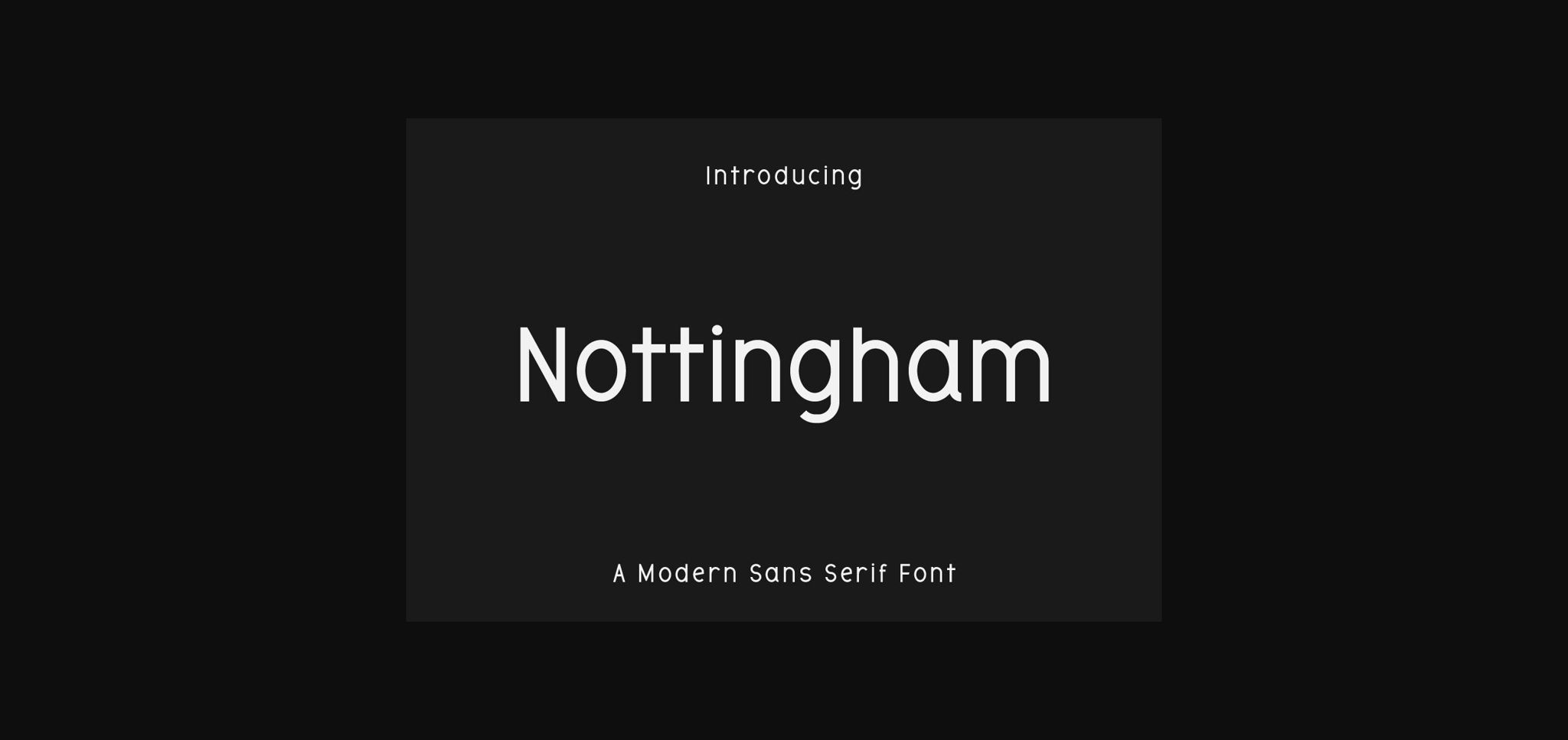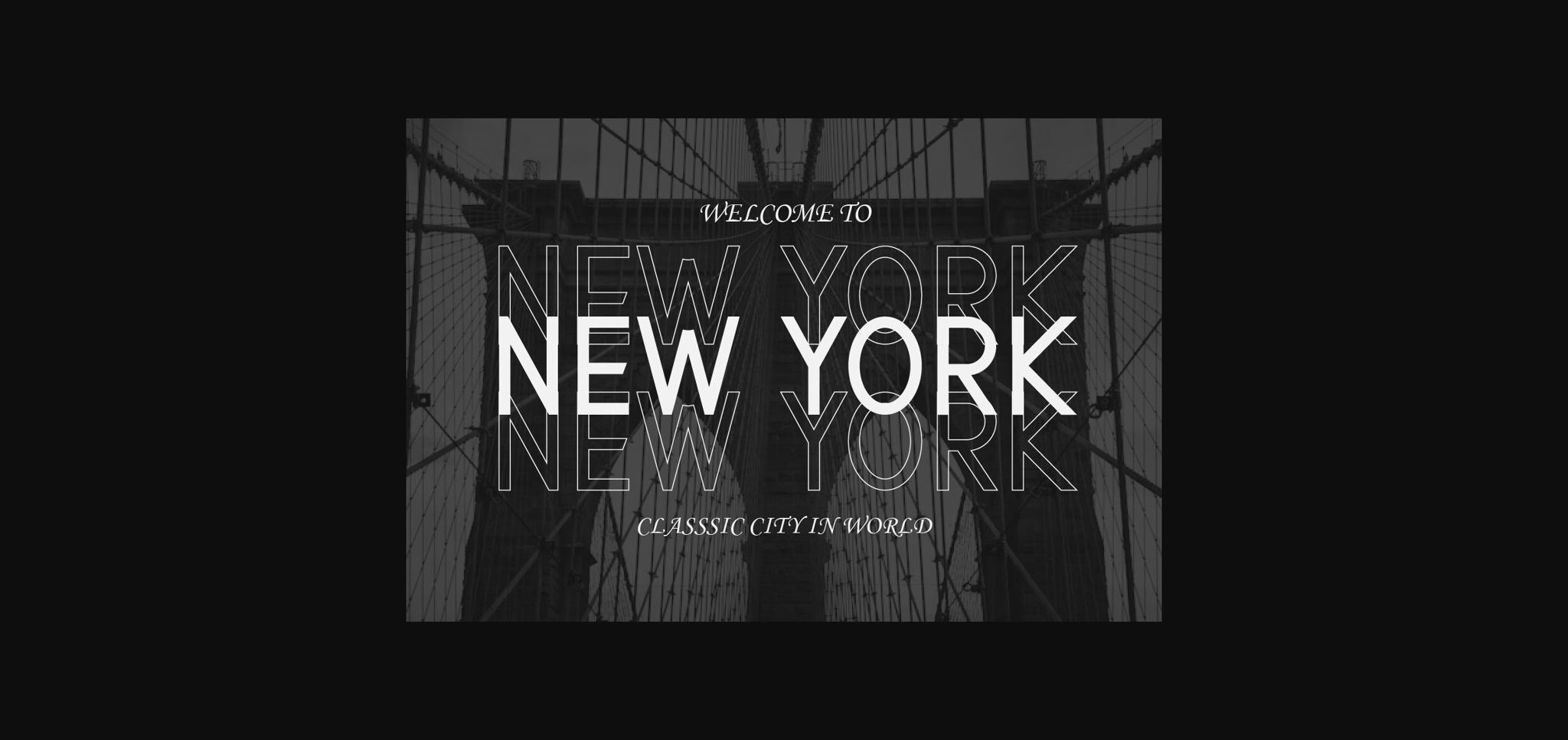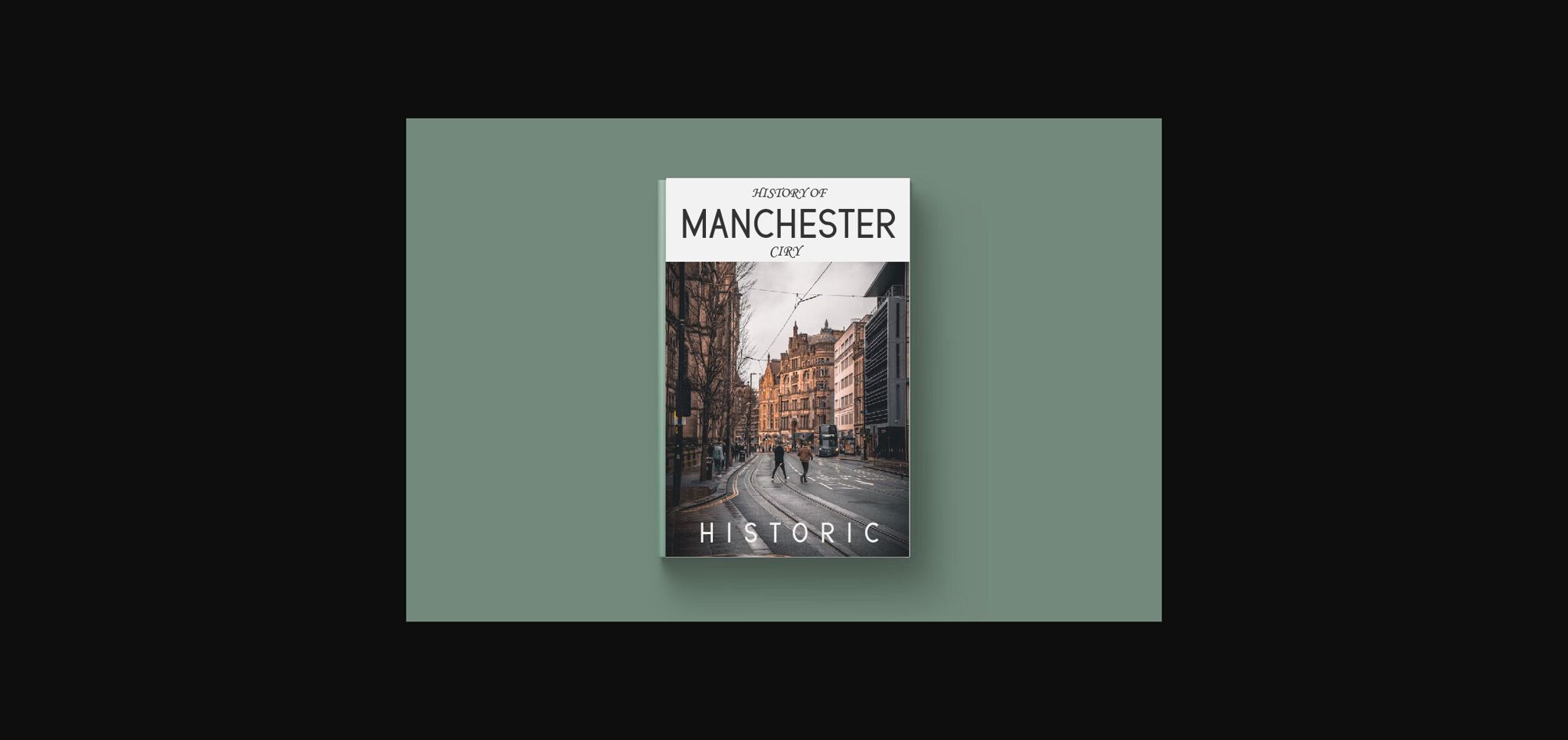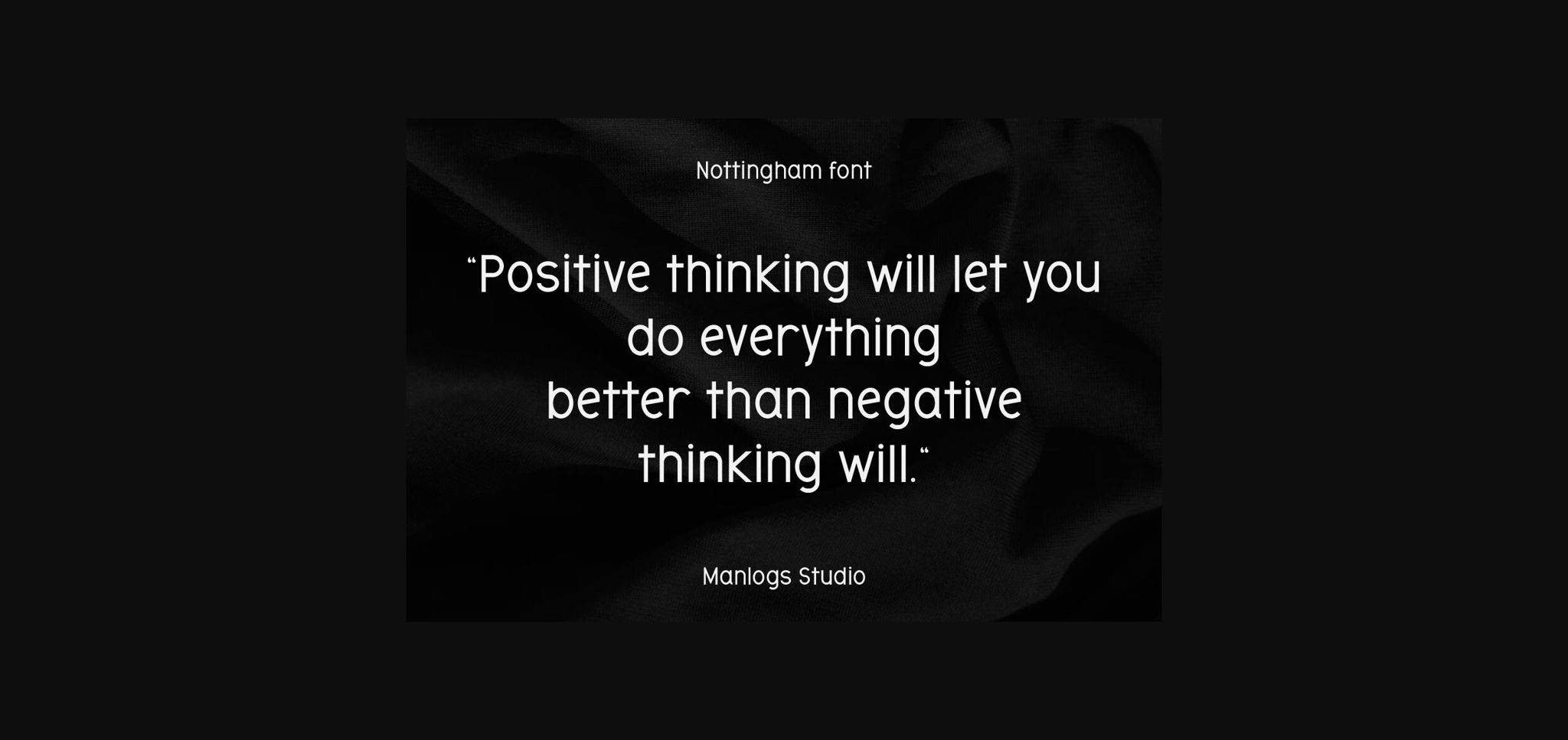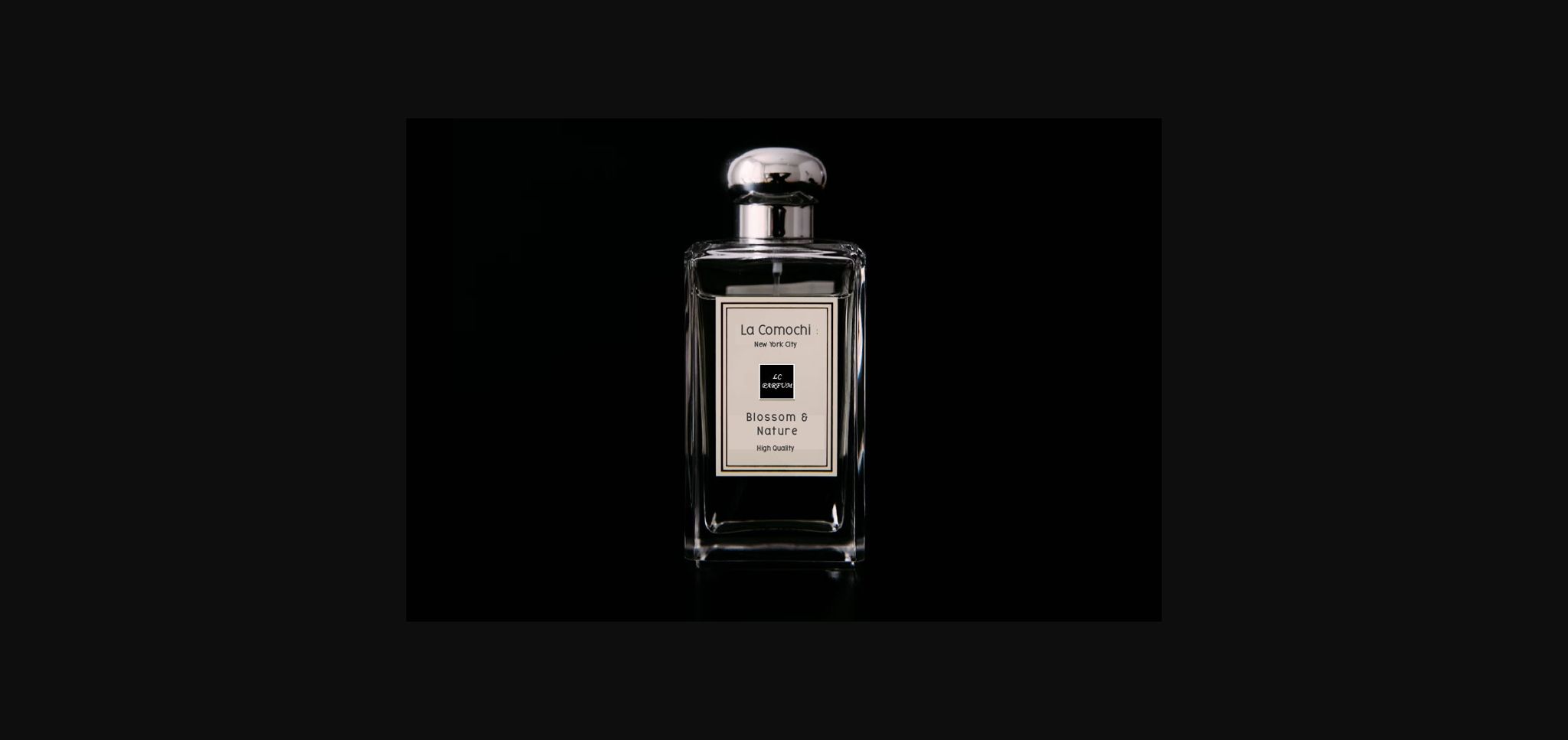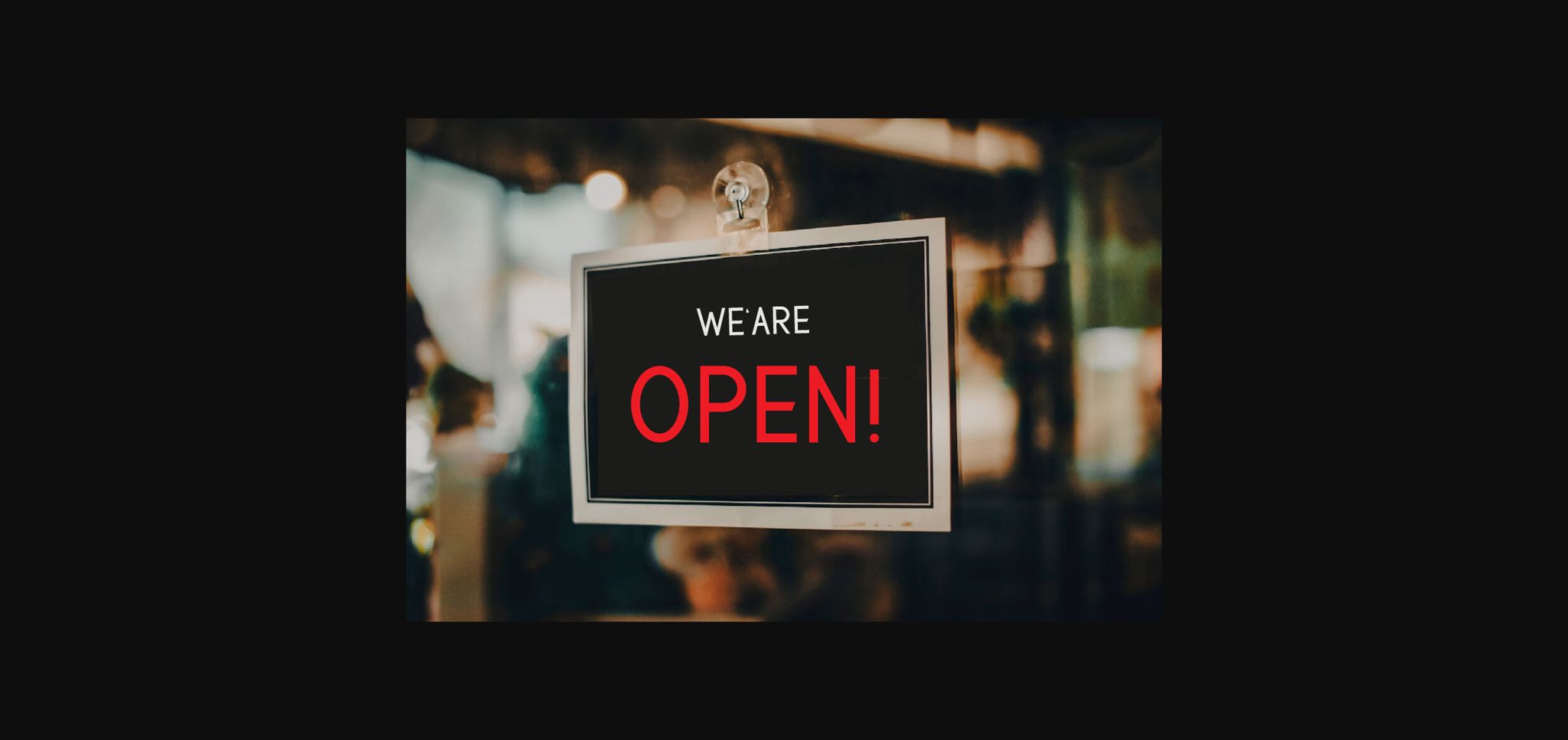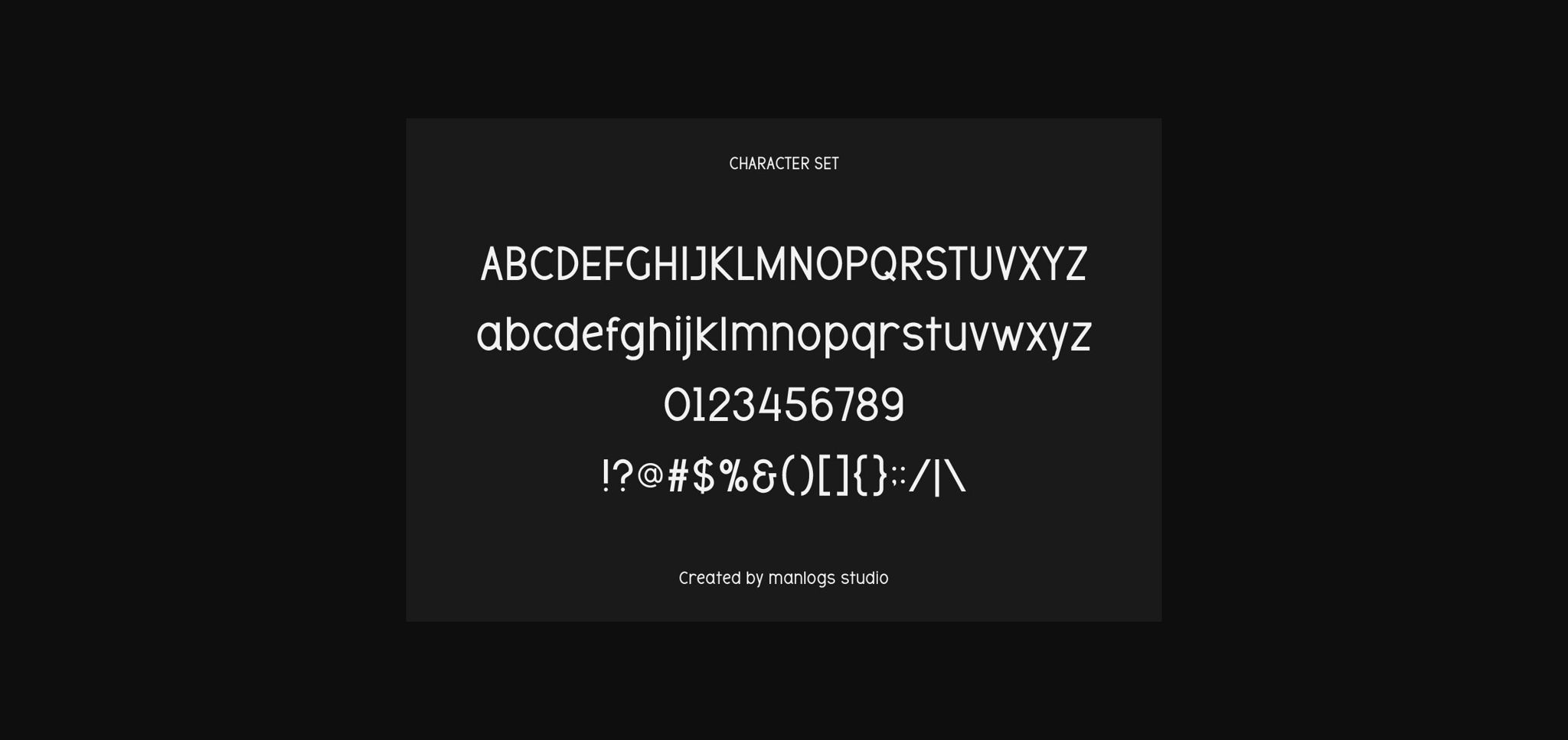
Nottingham Font
About Nottingham Font
Nottingham is a modern sans-serif typeface inspired by several classic typefaces that maintain minimalism at its best. Nottingham makes your design nice and cool, this font is suitable for skincare products, poster designs, headlines, quotes, t-shirts, presentations, logos, magazine covers, branding, etc.